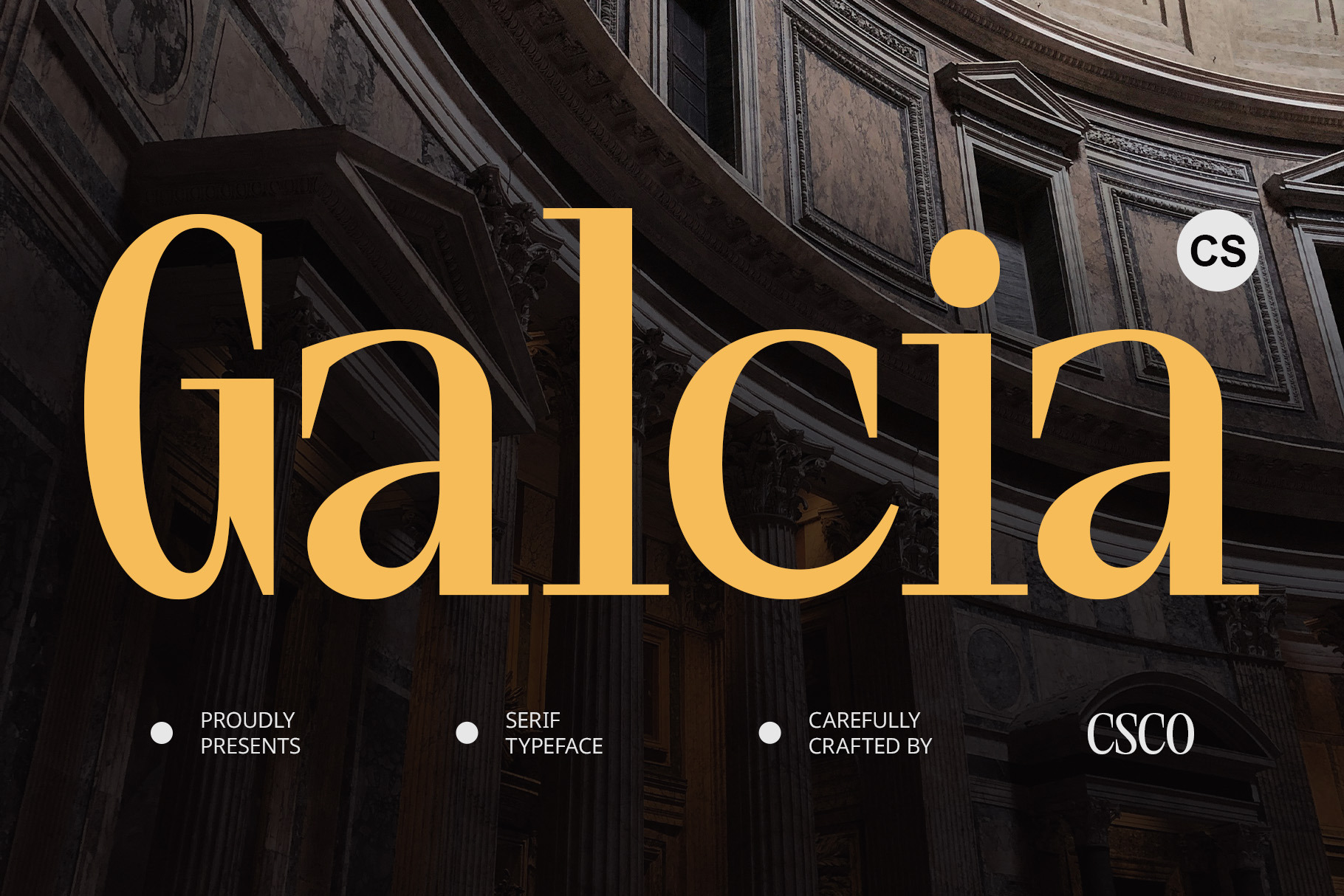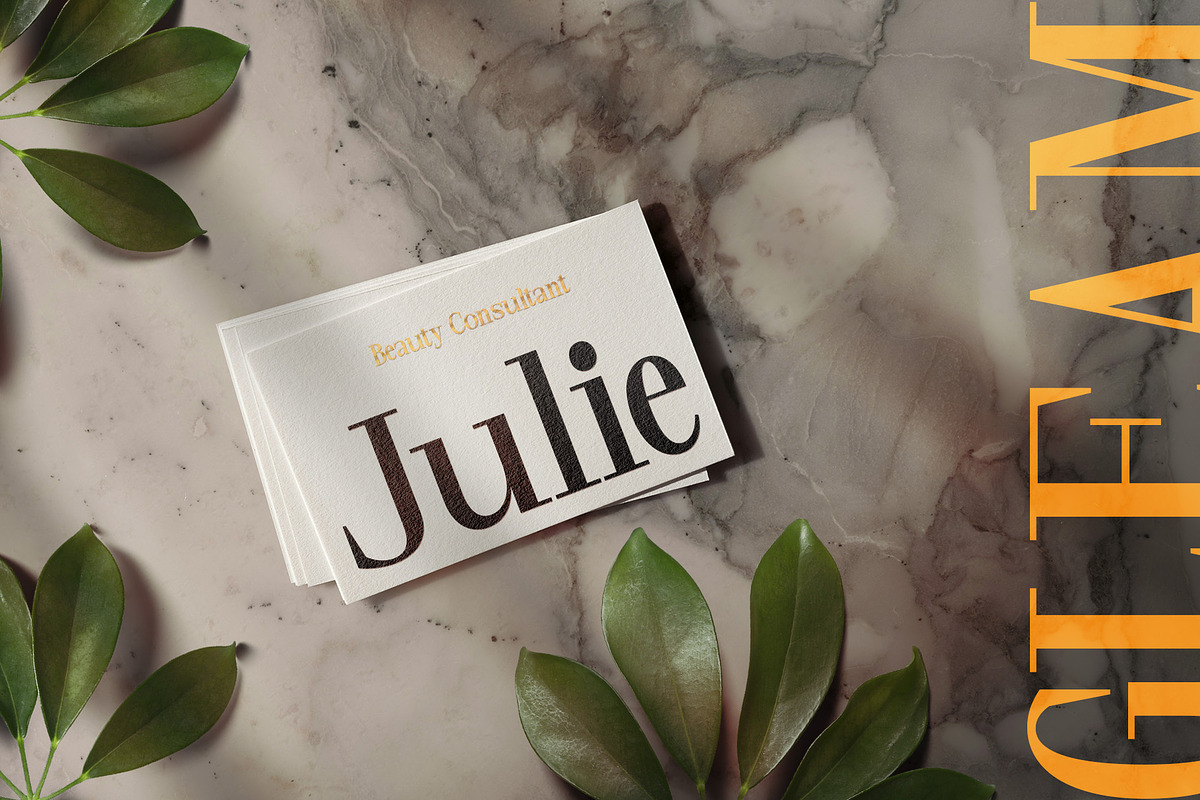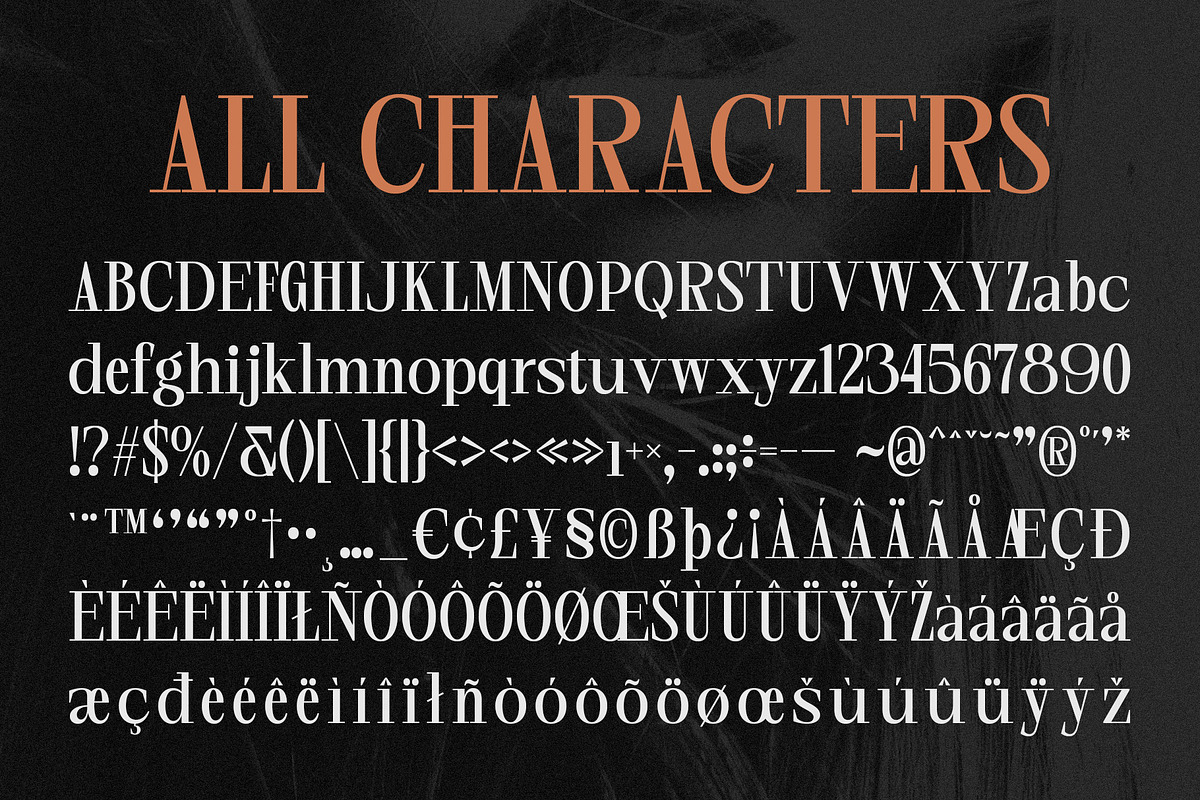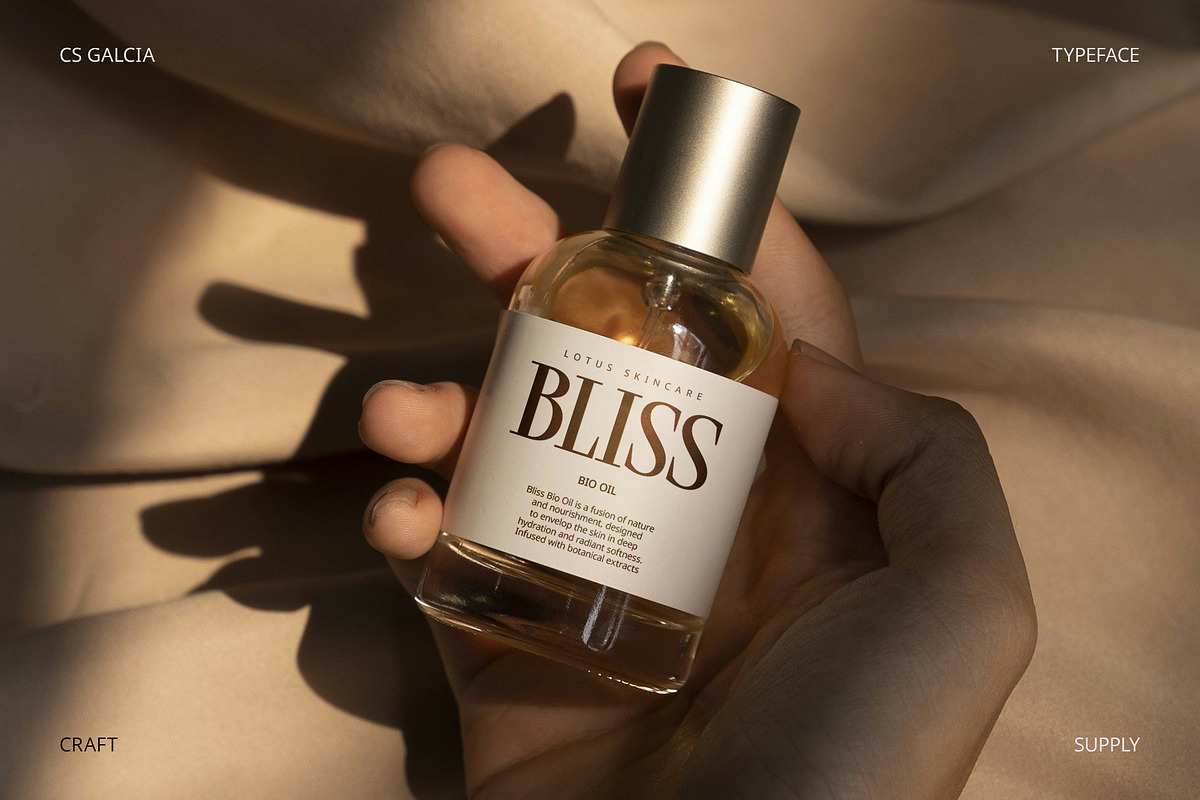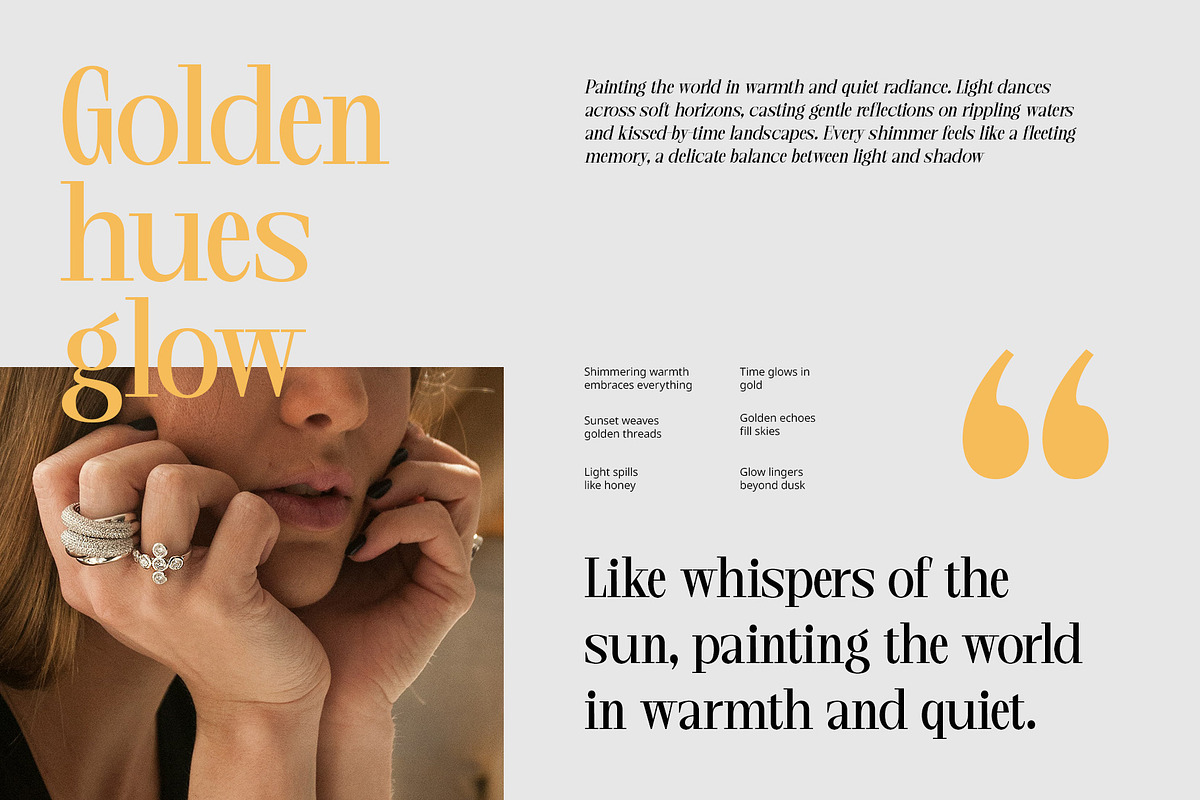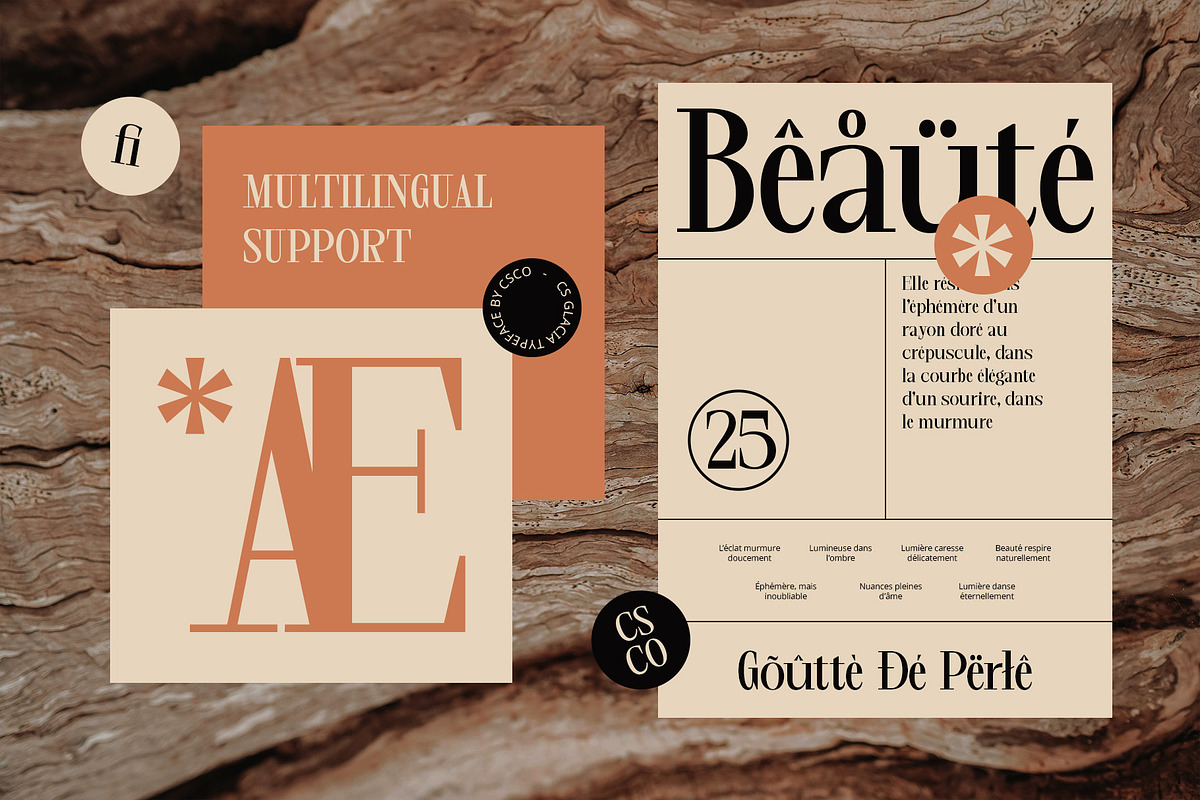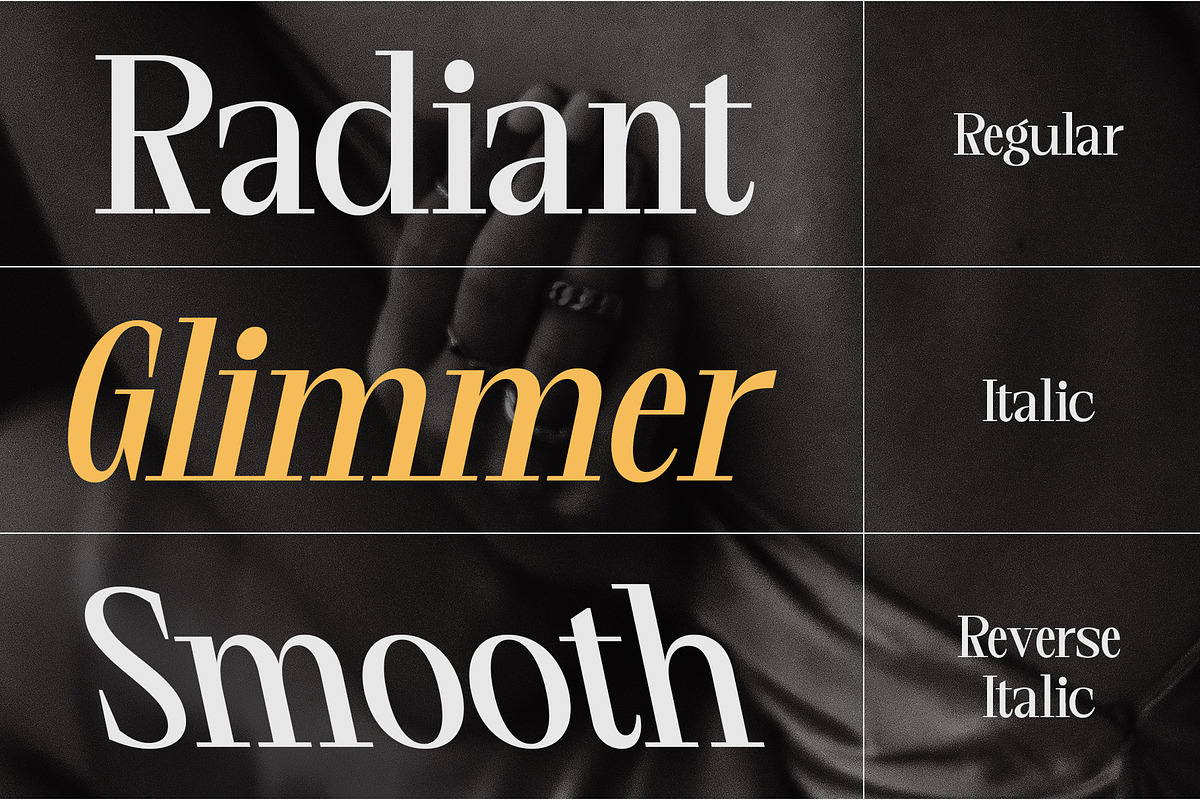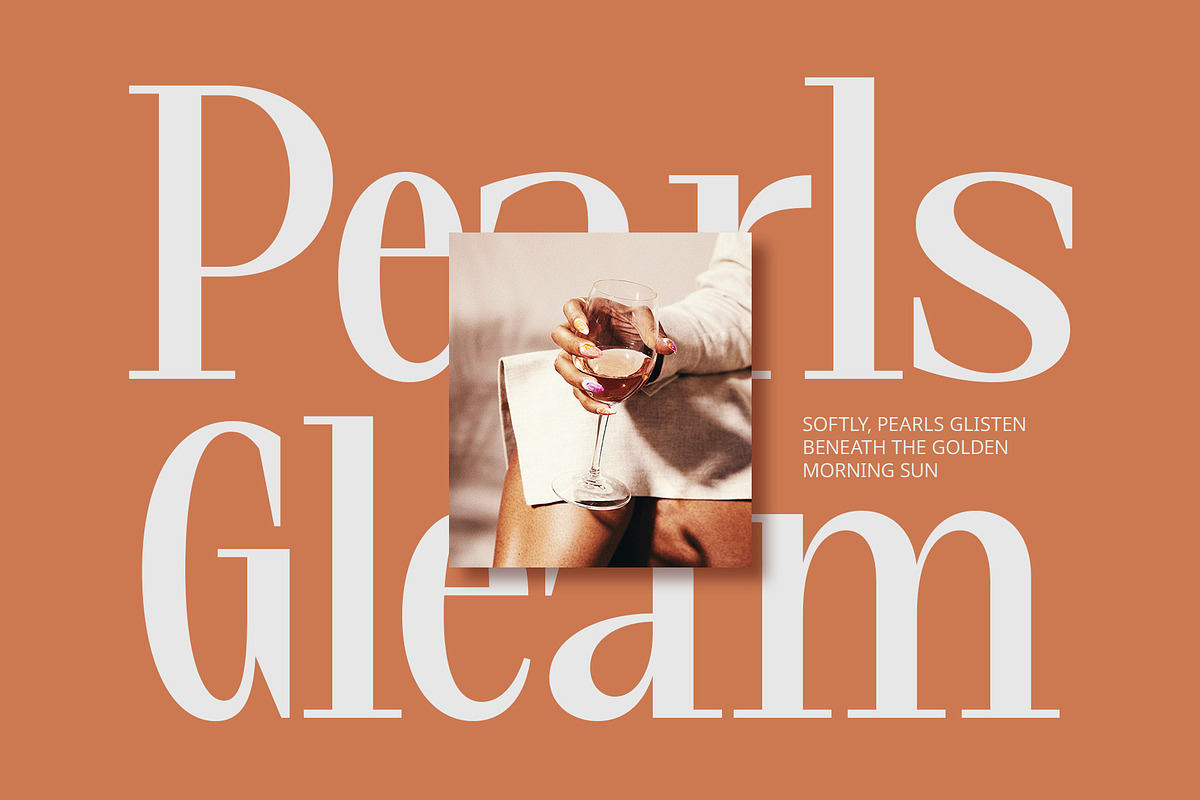
CS Galcia – Condensed Font
CS Galcia – Condensed Font: Sleek, Professional, and Timeless
Modern Serif Font with Condensed Form CS Galcia is a modern serif font with a refined condensed form that offers a sleek and structured appearance. The narrow proportions give the font a sense of precision and elegance, perfect for designs that require a formal, classy impression. Its contemporary design blends with a touch of vintage flair, making it a versatile choice for modern and timeless projects alike.
Professional and Sophisticated Appearance With its sharp, bold serifs and condensed structure, CS Galcia conveys professionalism and sophistication. The narrow letterforms ensure an efficient use of space, allowing for clean and clear text in designs where every inch counts. This combination of style and practicality makes the font ideal for high-end branding, editorial layouts, and corporate designs that demand a formal and polished look.
Ideal for Luxury Branding and Corporate Design CS Galcia is perfect for luxury branding and corporate identities that require a touch of timeless elegance. Its sleek lines and sharp serifs enhance the sense of stability and strength, while the condensed form maintains readability even in small spaces. Whether used in corporate materials, editorial design, or high-end branding, this font adds a sense of authority and sophistication to any project.
- CS Galcia Regular
- CS Galcia Italic
- CS Galcia Reverse Italic